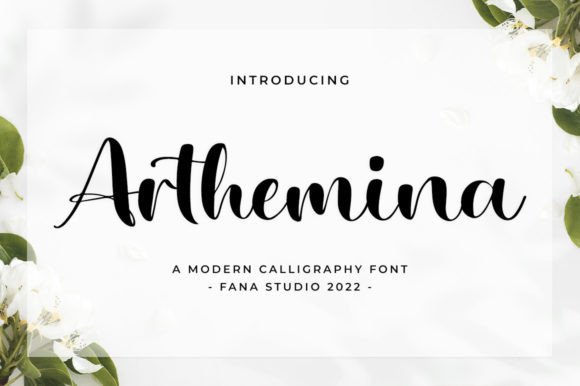
The Designer’s Delight: Arthemina Font
I’ll never forget the time I was working on a wedding invitation project, and my client asked for a font that was ” elegant, yet playful, and definitely Instagram-worthy.” I scoured the internet, tried out a dozen fonts, but none seemed to fit the bill. That was until I stumbled upon Arthemina Font. ✨
Arthemina is a modern, stylish, and beautiful handwritten font that has become my go-to for a wide range of design projects. From logos and branding to social media posts and product packaging, Arthemina brings a touch of sophistication and whimsy to any design.
- ✨ Elegant and refined, yet approachable and friendly
- 🌈 Beautifully crafted with attention to detail
While Arthemina is an exceptional font, there are a few things to keep in mind: ⚠️
- 🤔 Some users may find the font a tad too ornate for very informal projects
- ⚠️ May not be the best choice for body text or lengthy paragraphs
- Experiment with OpenType features, such as glyphs and stylistic alternates, to add visual interest
- Explore the font’s extensive character set and OpenType features to elevate your design
- Use the font’s built-in features, such as ligatures and stylistic alternates, to enhance your document
The Story Behind Arthemina
Arthemina was crafted with love and care by a talented type designer who drew inspiration from classic calligraphy and modern handwriting. The result is a font that exudes warmth, sophistication, and creativity.
Q: What makes Arthemina so special?
A: Arthemina’s unique blend of elegance and playfulness makes it perfect for a wide range of design projects.
Q: Is Arthemina suitable for body text?
A: While Arthemina is highly legible, it’s best suited for headlines, titles, and short paragraphs rather than lengthy body text.